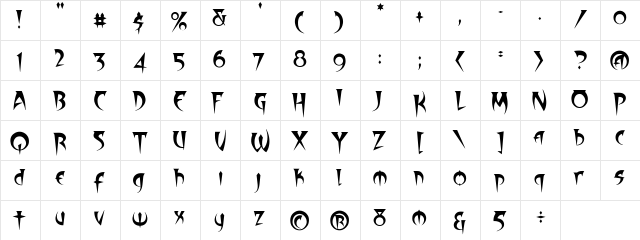
CCDivineRight Regular
Design Context for CCDivineRight Typeface
CCDivineRight is a composed and adaptable typeface that performs quietly and consistently across a wide range of design contexts.